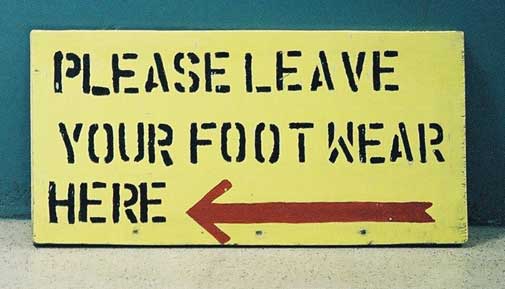
Font Fridays
Font Fridays is an attempt to release a new India Centric Font every week. Each of these fonts are inspired by the sign-board painters’ hand painted fonts. This week we created CargoLab. The complete set is as shown in this image. The inspiring font is in colour.  You can add your own style of weathering in Photoshop.
cargo set
cargo example